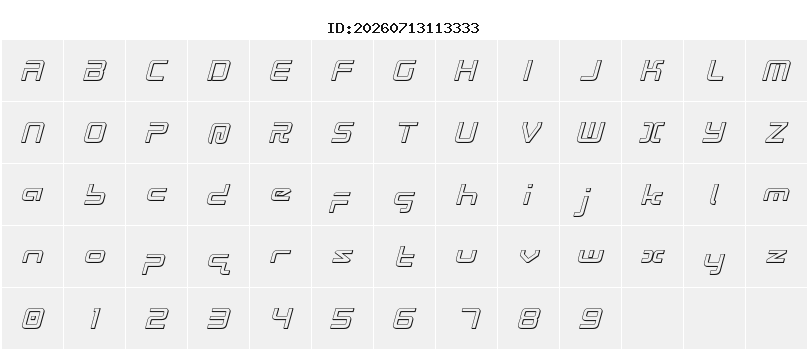
• Font Name: Radio Space 3D Italic
• Full Font Name: Radio Space 3D Italic
About Radio Space 3D Italic.ttf
Radio Space 3D Italic.ttf is a modern, elegant sans-serif font designed for ultimate readability and visual harmony. Perfect for branding, headlines, web design, and print materials.